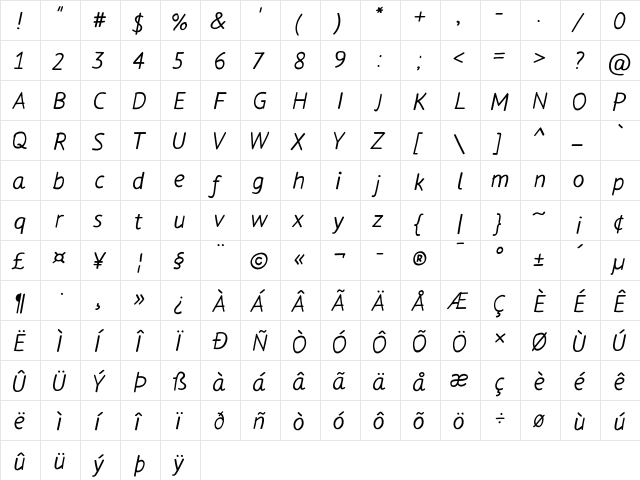
Flow Ext Regular
Design Context for Flow Ext Typeface
Flow Ext offers clean, dependable letterforms without strong stylistic allegiance, making it a practical choice for designers who need flexibility.
Pro Tip: Use Flow Ext in both headline and body roles to test its range before committing to a single application.